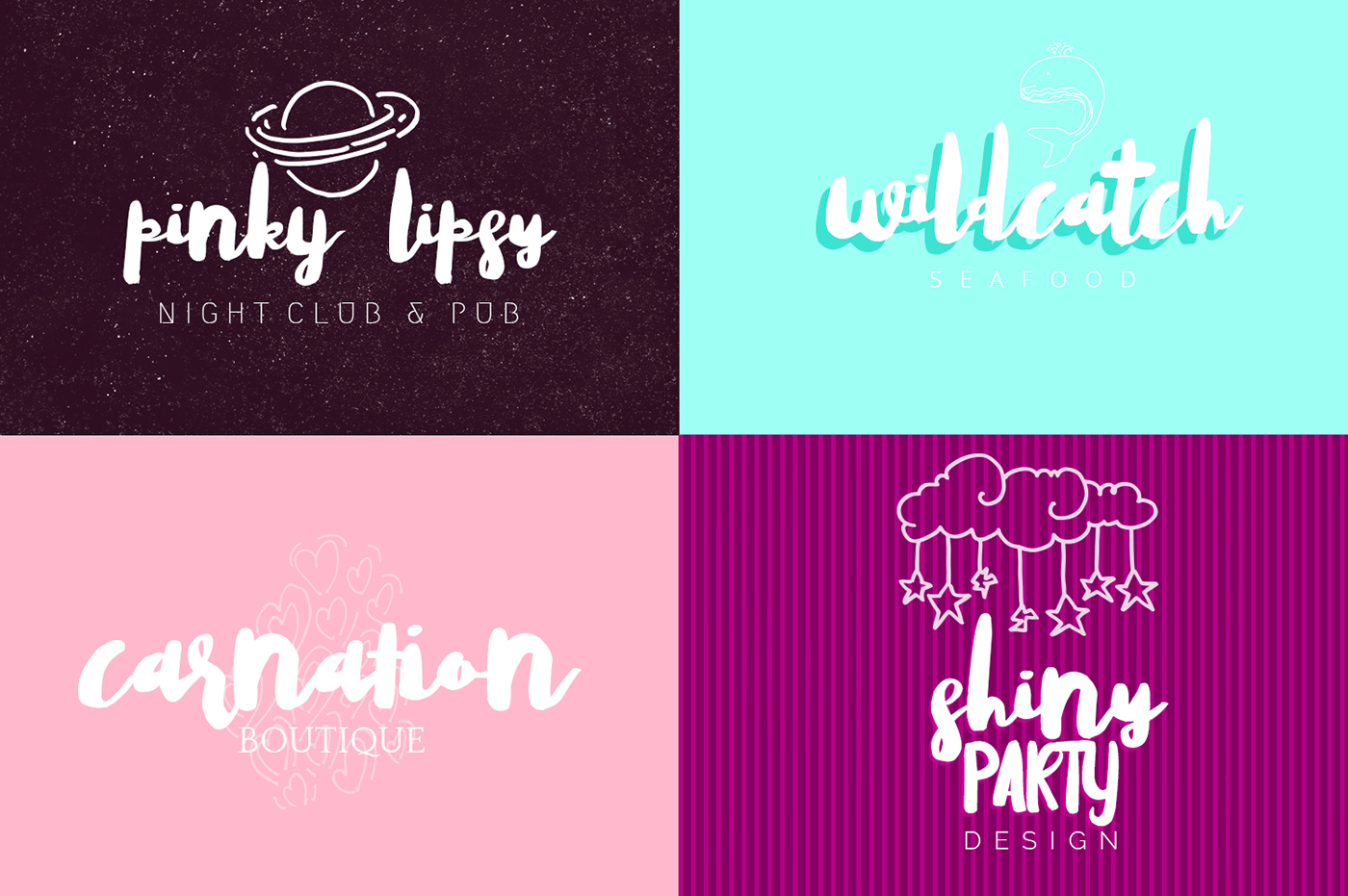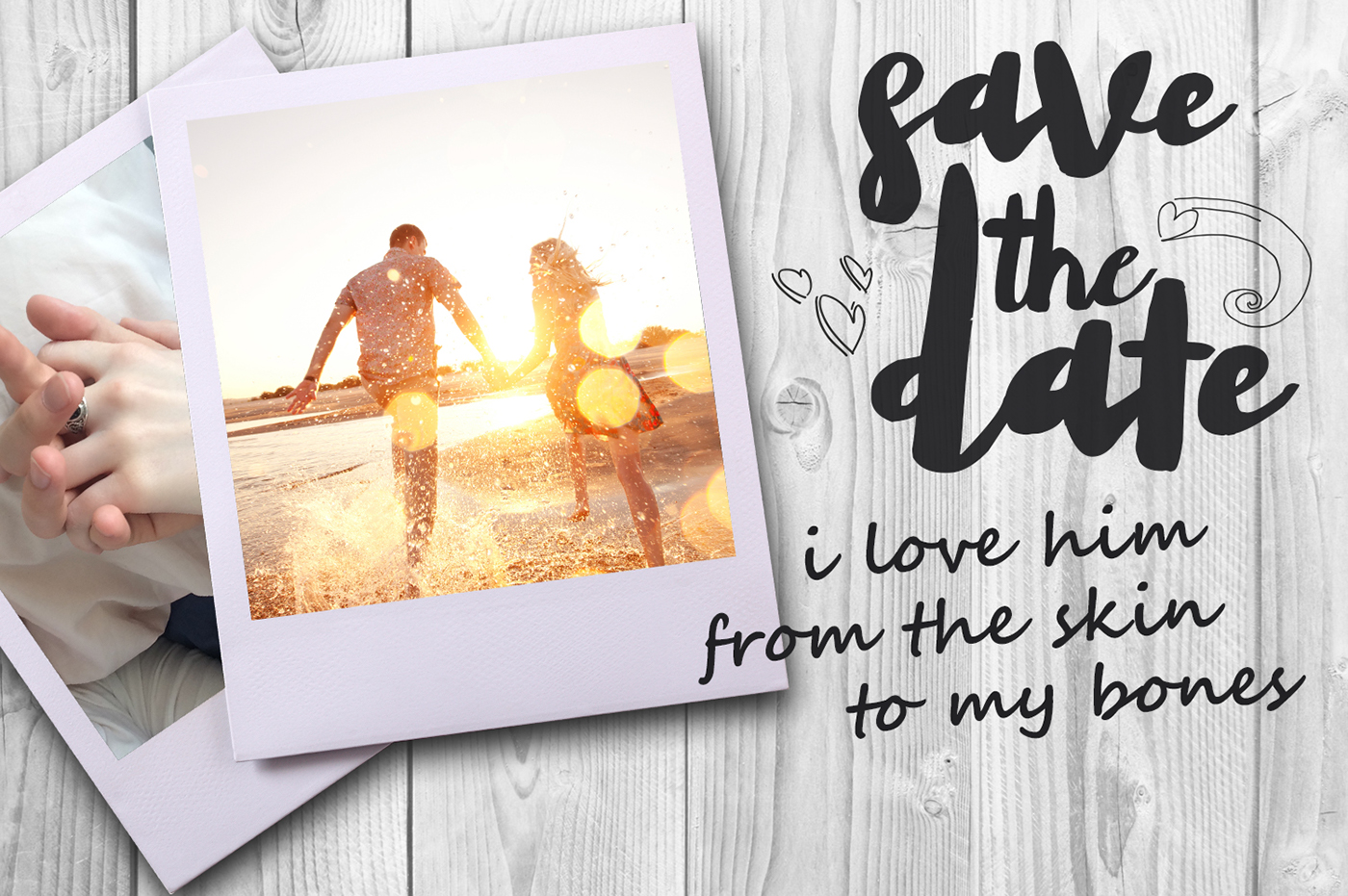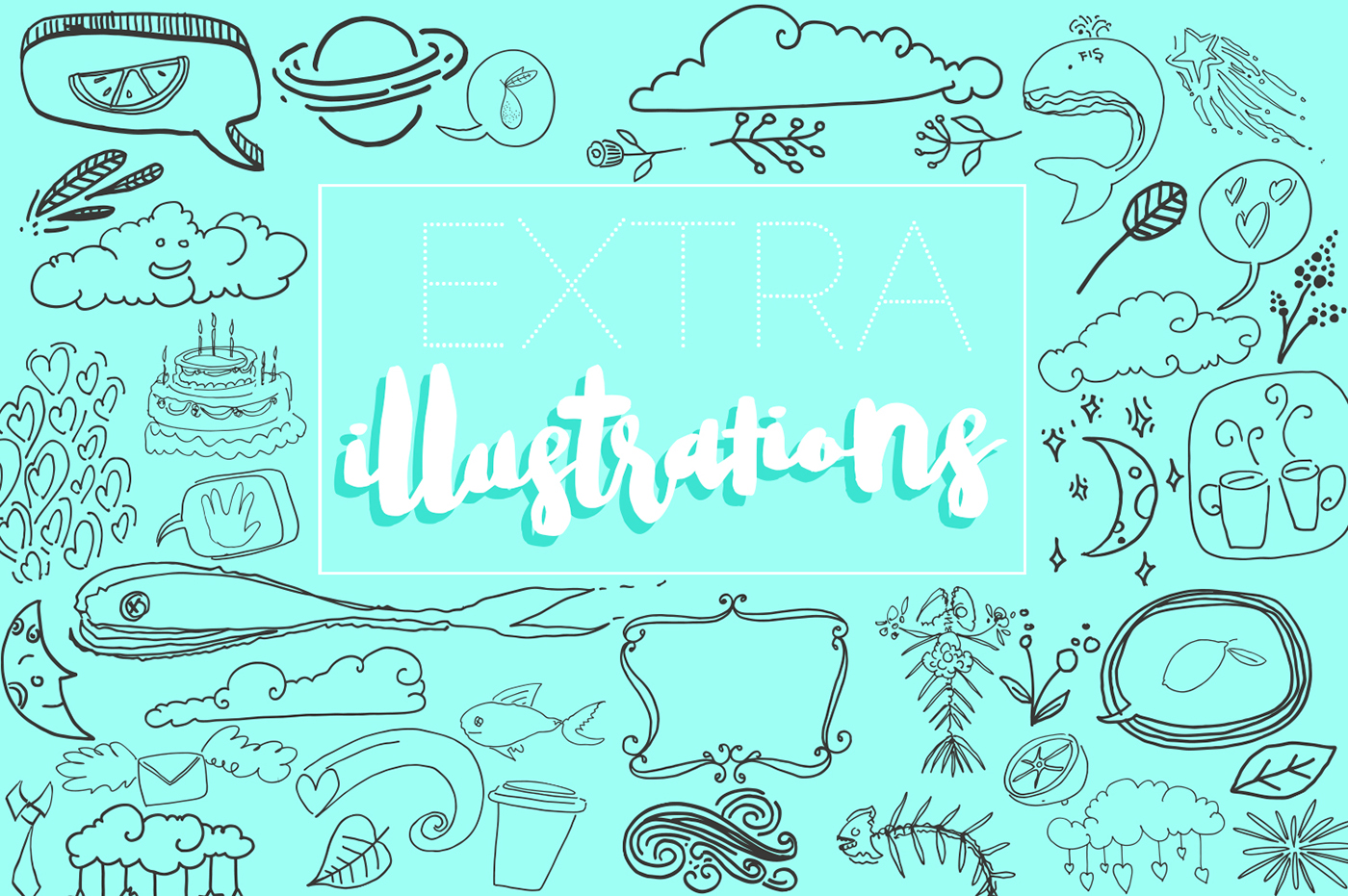
Wild Spirit
Wild Spirit Brush Font
WildSpirit is the new script.Bold and pretty style.Wild Spirit is perfect for making a bold statement in professional branding, advertising, poster design, book covers, magazines, greeting cards, merchandise, fashion campaigns, newsletters, album covers, and quote designs and more.